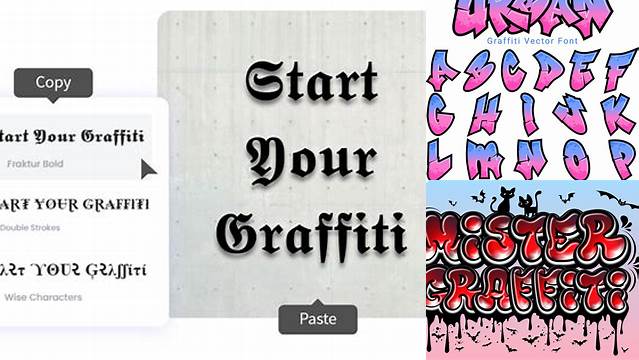
Cool Graffiti Fonts: Copy & Paste For FREE!
Hey everyone! Ever wanted to add some serious street style to your projects? Well, you're in the right place! We're diving headfirst into the awesome world of graffiti fonts – those iconic, edgy, and totally rad letter styles you see splashed across walls and in your favorite designs. And the best part? We're gonna hook you up with a graffiti font generator that lets you copy and paste these fonts for free! No need to be a pro artist or spend a fortune. Let's get started and get you creating some cool stuff!
H2: Unleash Your Inner Artist: Graffiti Font Generator Fundamentals
Alright, folks, let's break down the basics. What exactly is a graffiti font generator, and why should you care? Simple: it's your digital gateway to instant street cred. A graffiti font generator is a tool, often online, that transforms regular text into the look and feel of graffiti art. Think bold lines, dripping effects, shadows, and all the other visual elements that scream “urban art.” It takes your plain words and gives them a total makeover, all with a few clicks. Forget complex software or needing mad artistic skills. A graffiti font generator levels the playing field, making it super easy for anyone to experiment with graffiti-style typography. You can use these fonts for everything from personal projects, like spicing up social media posts or creating cool birthday cards, to more professional endeavors such as designing logos, creating website banners, or even making mockups for your own streetwear brand.
The beauty lies in the accessibility. These generators are usually designed with user-friendliness in mind. You just type in your text, select your desired style (often with previews so you can see exactly what you're getting), and then, boom – your text is transformed. And the best part? Many of these tools are completely free to use! No hidden fees, no subscriptions, just pure creative freedom. This opens up a world of possibilities, allowing you to express yourself with a unique visual language. Want to convey a sense of energy, rebellion, or urban cool? Graffiti fonts are your go-to. They capture attention, communicate a distinct vibe, and add a layer of artistic flair that's hard to match. So whether you're a seasoned designer looking to add some new tools to your arsenal or a complete beginner just starting to explore the world of typography, a graffiti font generator is an invaluable resource.
H2: Exploring the Graffiti Font Universe: Styles and Variations
Now that we've covered the basics, let's dive deeper into the exciting world of graffiti font styles. Trust me, there's a whole galaxy of options out there, each with its own personality and flavor. From classic tags to elaborate murals, the possibilities are endless. One of the most recognizable styles is the classic tag font. This is the foundation of graffiti, a simple yet impactful lettering style. It's characterized by its quick, flowing lines, often designed for speed and visibility. Think of those iconic signatures you see on walls – that's the tag style. Then, there's the bubble font, a fun and playful style featuring rounded, inflated letterforms. It's energetic and eye-catching, often used for lighter-hearted messages or to add a touch of whimsy. The bubble font is perfect for creating a friendly and inviting feel. Another popular choice is the block font, known for its strong, bold appearance. These fonts are solid, making a statement with their clear, readable lines. Block fonts are great for conveying authority, strength, or a sense of structure.
Moving beyond the basics, you’ll encounter fonts with specific effects. Dripping fonts simulate the look of paint running down a surface, adding a dynamic, almost three-dimensional quality to your text. They're perfect for conveying a sense of movement or adding a touch of grunge. Then, there are fonts that incorporate shadows and outlines. Shadow fonts create a sense of depth and dimension, giving your text a 3D effect. Outline fonts provide a clean, crisp look, making your text stand out with a defined border. The choices are endless, and the right one can completely transform your message. Experiment with different styles, playing with different combinations. Try mixing and matching styles for a unique look. Remember, the best font style is the one that perfectly complements your message and aesthetic goals. Don't be afraid to experiment, break the rules, and let your creativity run wild!
H3: Classic Tag Fonts: The Foundation of Graffiti Art
Let's zoom in on the classic tag font, the cornerstone of the graffiti art world. The tag is more than just a signature; it's a statement, a visual representation of the artist's identity and style. Think of it as the artist's mark, a way of claiming space and making their presence known. Tag fonts are typically designed for speed and efficiency. Artists need to be able to create their tag quickly and legibly, often in challenging environments. This leads to a unique set of characteristics. Tag fonts often feature flowing lines and connected letterforms. The goal is to create a visual rhythm and dynamic movement. The letters are often stylized, with a personal touch that reflects the artist's individual flair. It might involve sharp angles, rounded curves, or unique letter structures. The evolution of the tag font is fascinating. Artists constantly experiment with new styles, pushing the boundaries of legibility and creativity.
Some tags are simple and straightforward, prioritizing speed and clarity. Others are elaborate and complex, showcasing the artist's technical skill and artistic vision. The materials used also influence the look. A tag created with a marker will have a different feel than one created with a spray can. The color palette, too, plays a crucial role. Bright, vibrant colors are often used to grab attention, while more muted tones can create a sense of mystery or sophistication. Understanding the history and evolution of tag fonts can give you a deeper appreciation for this art form. Study the work of famous graffiti artists and try to identify the unique elements of their tag styles. Analyze the flow of the lines, the way the letters connect, and the overall visual impact of the tag. Experiment with different tag styles yourself. The goal is to create a tag that reflects your personality and artistic vision. Keep practicing and refining your tag until you are confident in your ability to create it quickly and consistently. Always remember to respect the law and the environment.
H3: Bubble Fonts: Adding Playfulness to Your Designs
Now let's bounce over to the bubble font – the fun-loving cousin of the graffiti font family! Bubble fonts are all about embracing a sense of playfulness and lightheartedness. These fonts are known for their rounded, inflated letterforms, which give them a bouncy, inviting appearance. They're perfect for adding a touch of fun and energy to your designs, whether you're creating a poster for a kid's party, designing a social media graphic, or just want to add some personality to your website. One of the key features of bubble fonts is their roundness. The letters are typically created with smooth, flowing curves, giving them a soft, friendly feel. This contrasts sharply with the sharp angles and aggressive lines of other graffiti styles. It makes them instantly approachable and easily readable, even from a distance. The thickness of the lines also plays a crucial role. Bubble fonts often feature thick, bold strokes that add weight and visual impact. This contributes to the font's playful aesthetic and ensures that your message stands out.
The color palette you choose can greatly impact the overall look and feel of a bubble font. Bright, vibrant colors like yellows, pinks, and blues can enhance the font's playful nature, making your designs pop. Pastels can create a softer, more whimsical vibe, while a black and white palette can add a touch of sophistication. It's all about finding the right combination of colors to match your message and audience. Remember, a bubble font is a versatile design element. You can use it in various ways to add a fun and engaging touch to your work. Experiment with different styles, colors, and effects to see what works best for you. With a little creativity and imagination, you can create designs that are both visually appealing and full of personality. So, embrace the fun, get creative, and start using bubble fonts to bring your designs to life!
H3: Block Fonts: Making a Bold Statement
Alright, let's talk about block fonts. These are the heavy hitters of the graffiti world, known for their strong, solid appearance. If you want to make a bold statement and grab attention, a block font is the way to go. Block fonts are characterized by their clean, straight lines and defined edges. They're easy to read and project a sense of confidence and authority. The letters are typically thick and unadorned, making them perfect for headlines, titles, and any situation where you need to get your message across clearly. One of the key features of block fonts is their simplicity. They often lack elaborate embellishments, allowing the letters to stand on their own. This straightforward design makes them incredibly versatile. They can be used in various applications, from street art to graphic design, and always make a statement. The weight of the font also plays a crucial role in its visual impact. Bold, heavy block fonts create a sense of strength and dominance, while lighter weights can be used for a more subtle effect.
H3: Step-by-Step Guide: Using a Graffiti Font Generator
So, you've chosen your generator, and you're ready to roll! Here's a simple step-by-step guide to get you started: 1. Choose Your Generator: Pick one of the recommended generators or explore other options that appeal to you. Consider the range of styles and ease of use. 2. Enter Your Text: Type the text you want to convert into the generator's text box. Ensure that your text is accurate and formatted as you wish. 3. Select Your Style: Browse through the available font styles and choose the one that best suits your needs. Most generators provide previews so you can see what your text will look like. 4. Customize (If Possible): If the generator offers customization options, play around with the font size, color, and effects. Experiment until you find the perfect look. 5. Generate Your Text: Click the